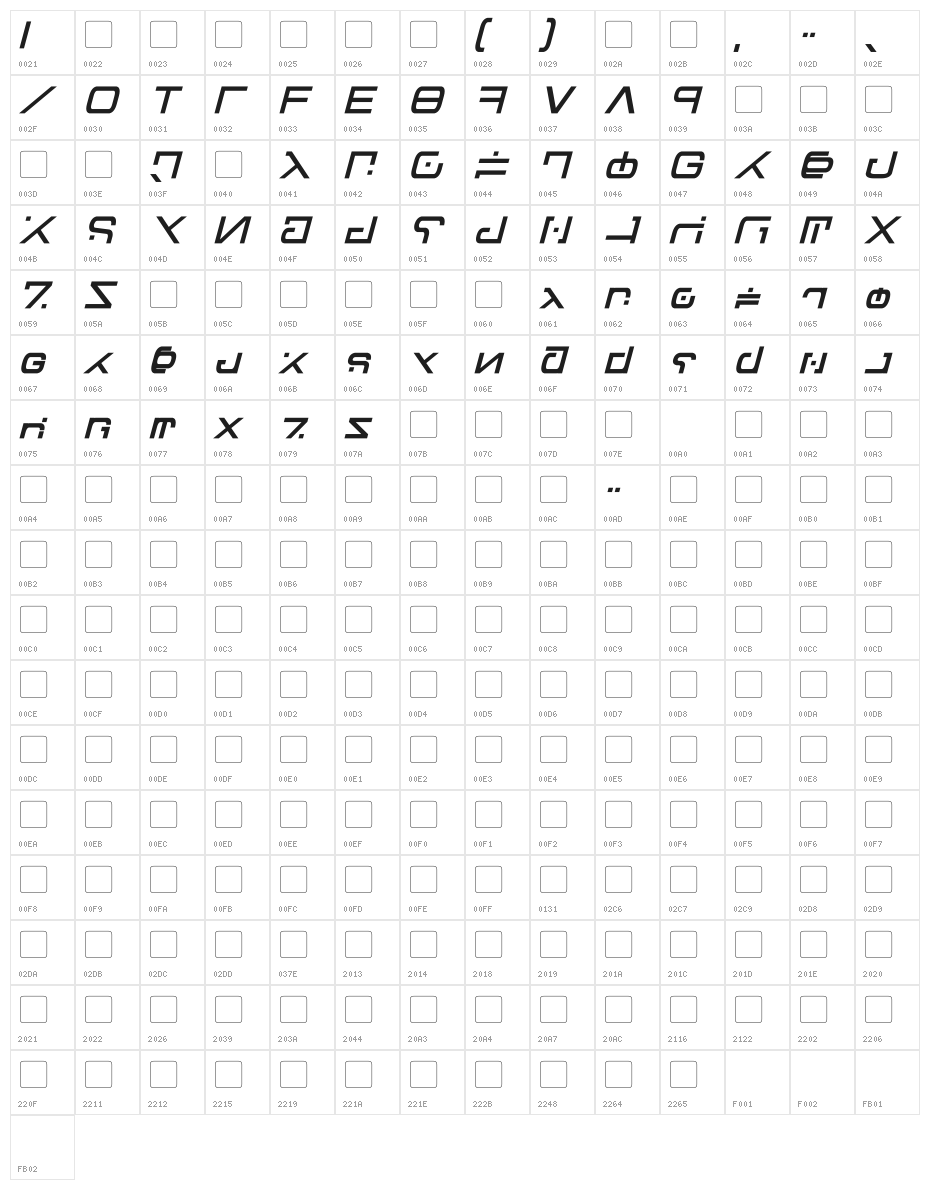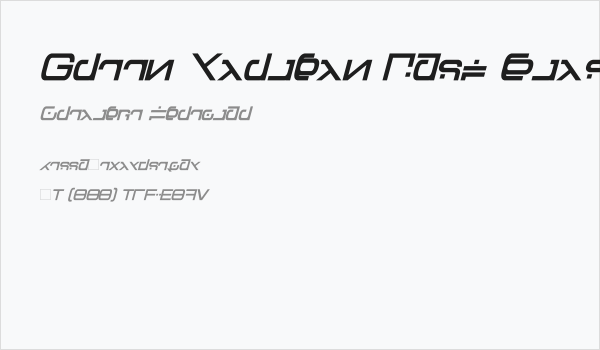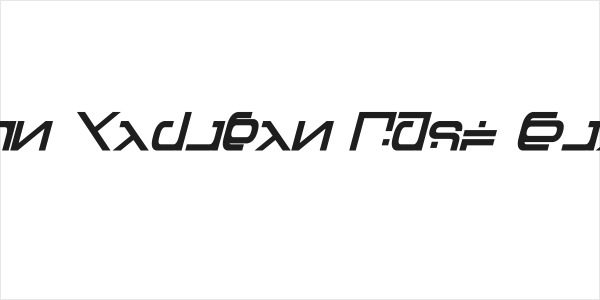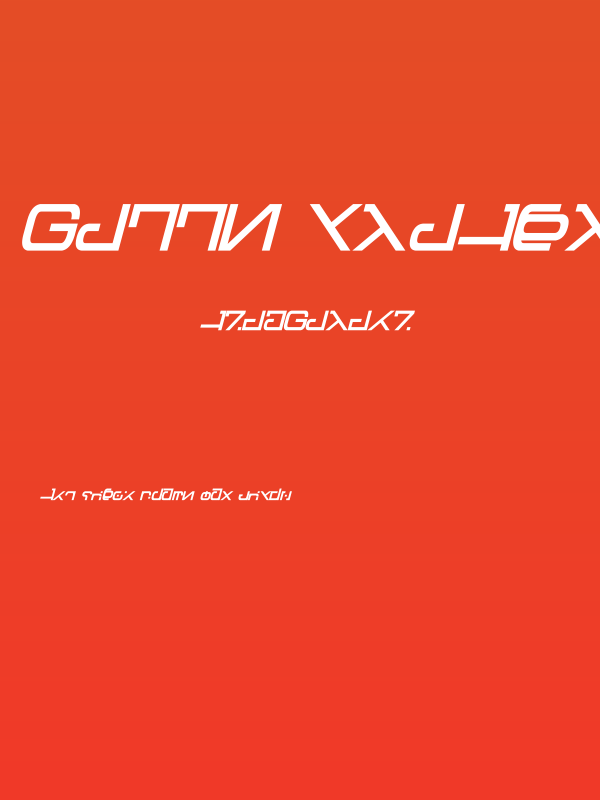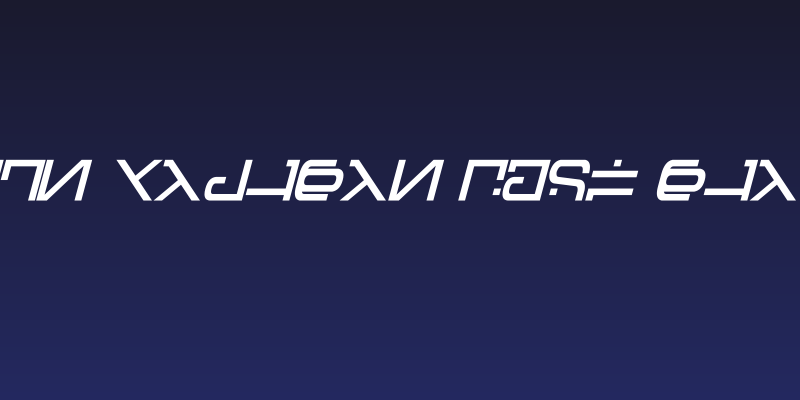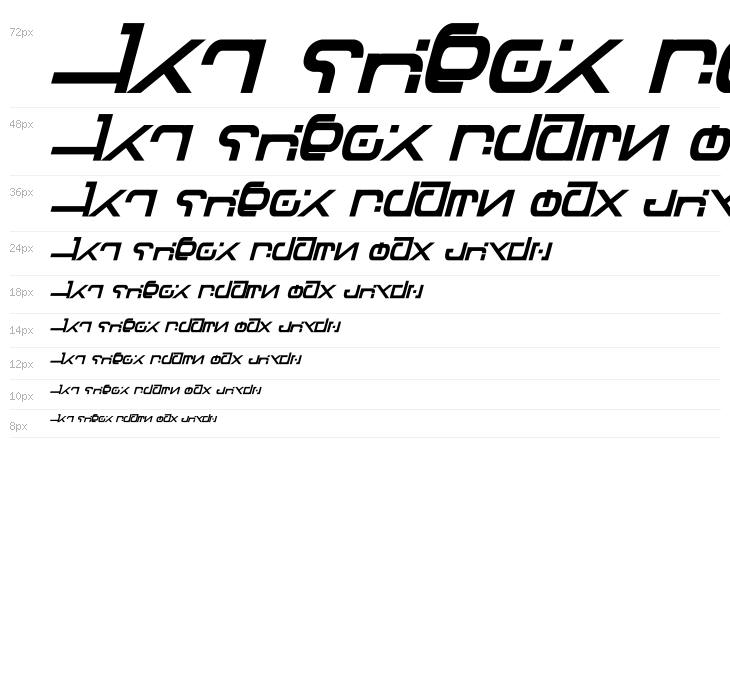
Green Martian Bold Italic Font
Green Martian Bold Italic Description
This futuristic and bold typeface features a highly stylized design with sharp angles and geometric shapes, creating a sense of movement and speed. The characters are italicized, adding to the dynamic feel, and the overall appearance is reminiscent of science fiction aesthetics. The font includes uppercase and lowercase letters, numbers, and a selection of special characters, all maintaining a consistent angular theme. The design is unique and eye-catching, making it suitable for projects that require a modern and unconventional look.
| Proposed Projects | Ideal for sci-fi themed posters, video game titles, futuristic branding, and technology-related projects. |